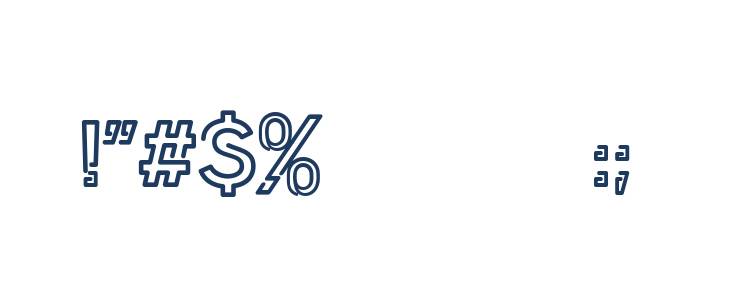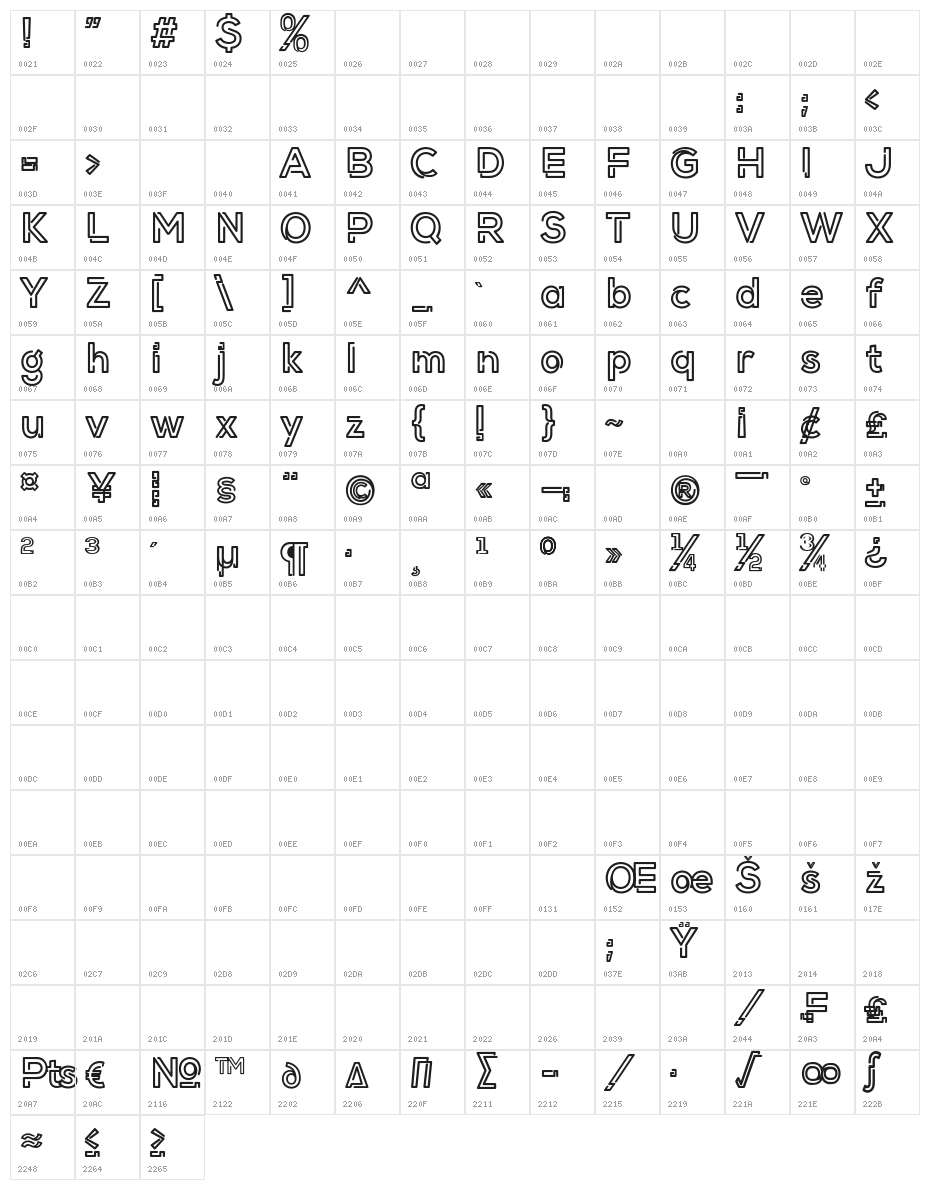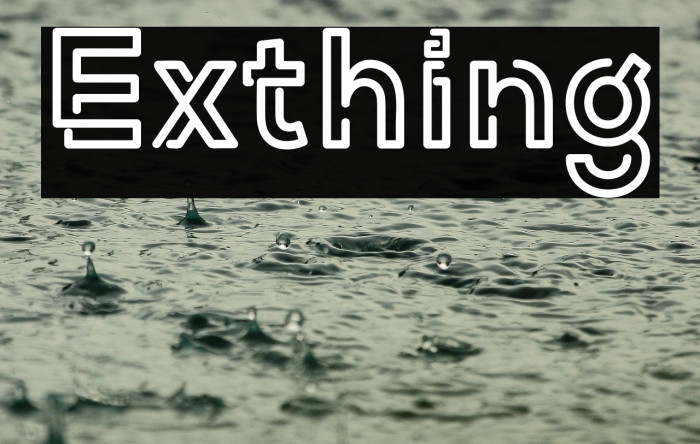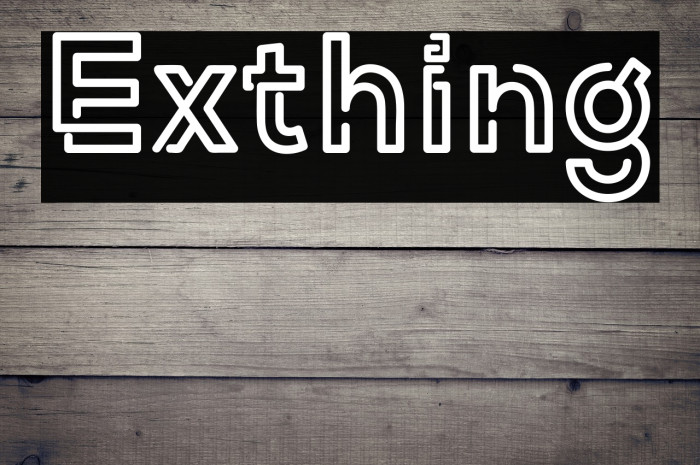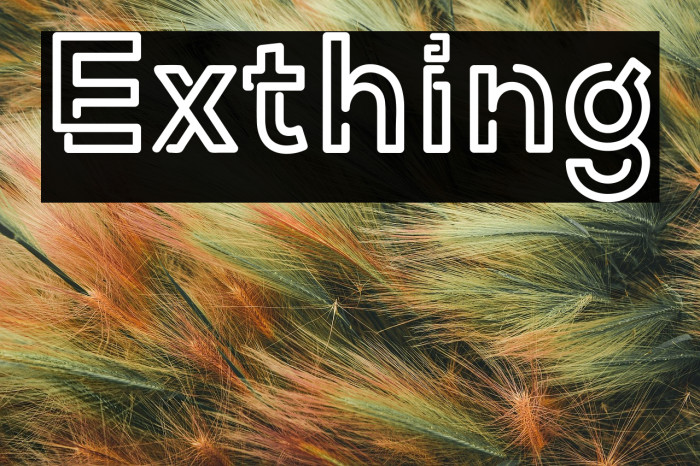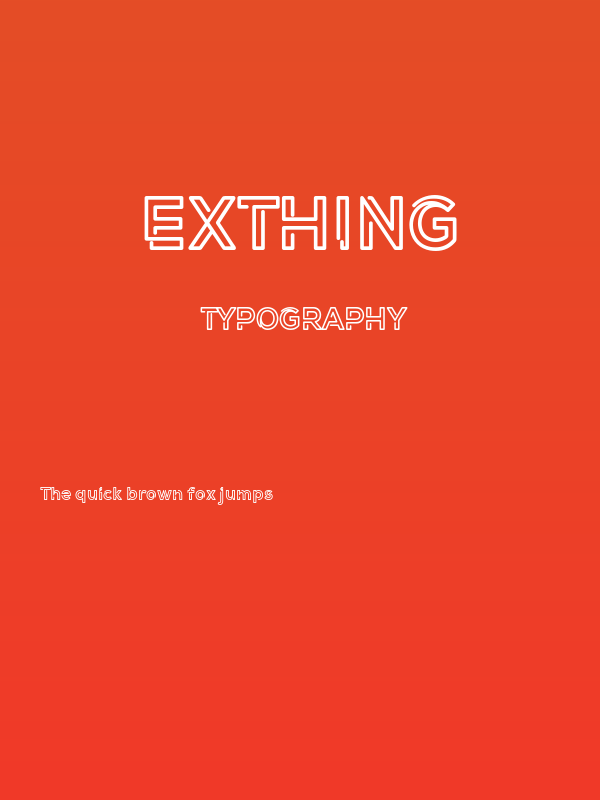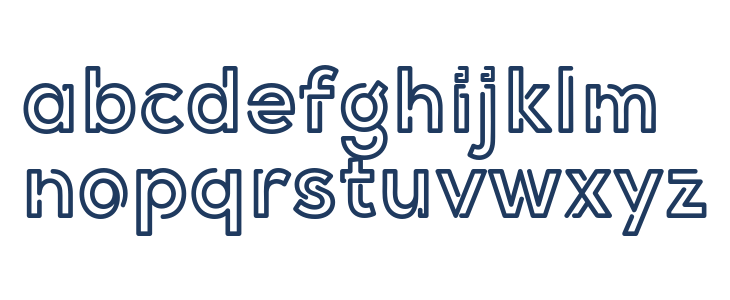
Exthing Font
Exthing Description
This font features a bold, outlined style with a modern and geometric aesthetic. The uppercase and lowercase letters maintain a consistent thickness, creating a uniform appearance. The characters are well-defined with clean lines and sharp angles, giving it a contemporary feel. The font includes a full set of uppercase and lowercase letters, numbers, and a selection of special characters. Its outlined nature makes it suitable for designs that require a striking and eye-catching look, such as posters or headlines. The spacing between characters is normal, allowing for clear readability while maintaining its decorative appeal.
| Proposed Projects | Ideal for posters, headlines, logos, and branding materials that require a bold and modern look. |